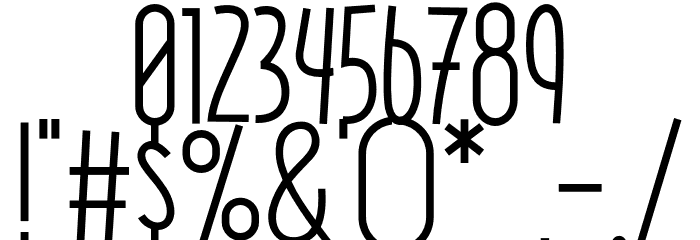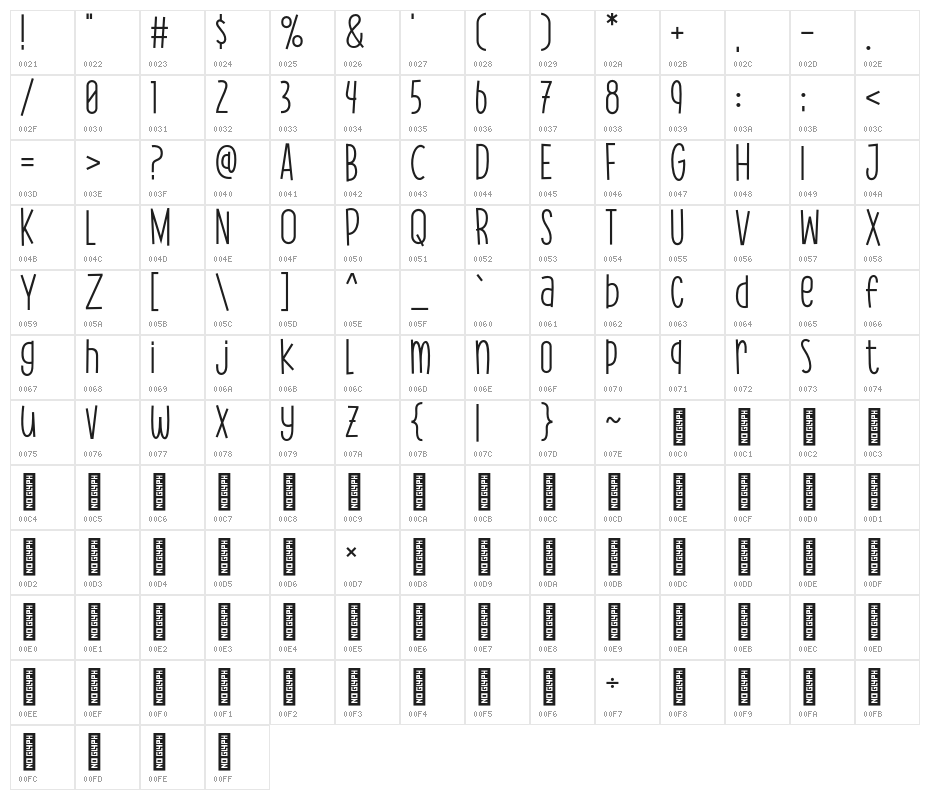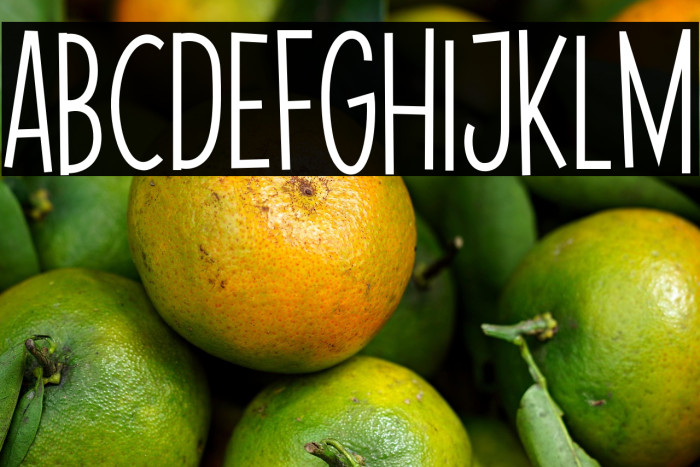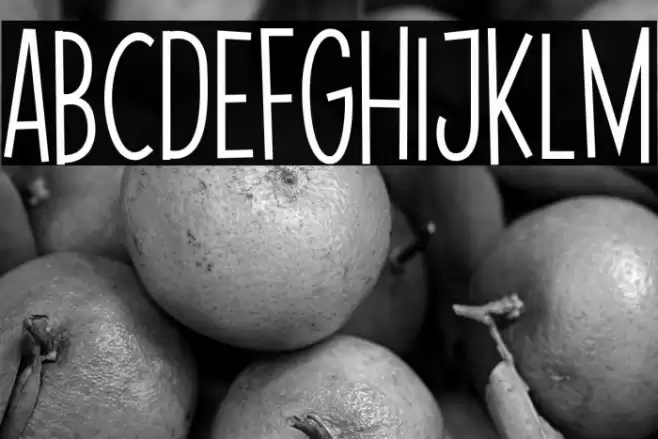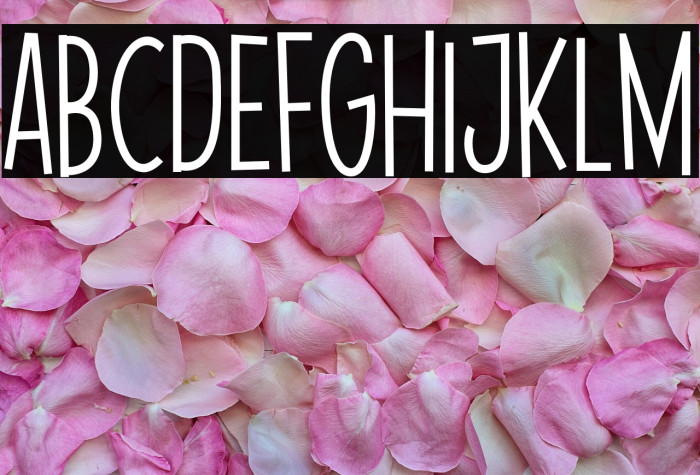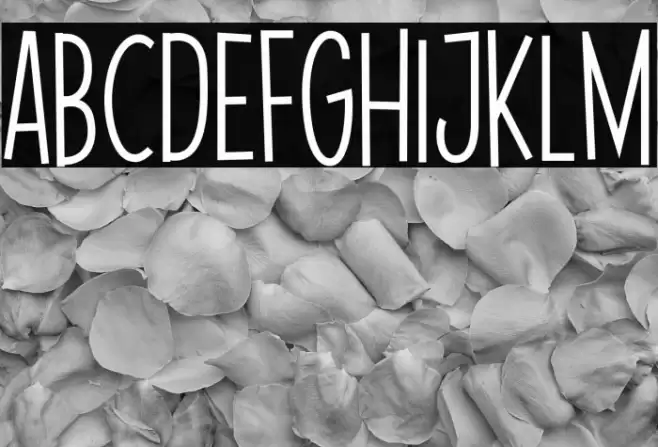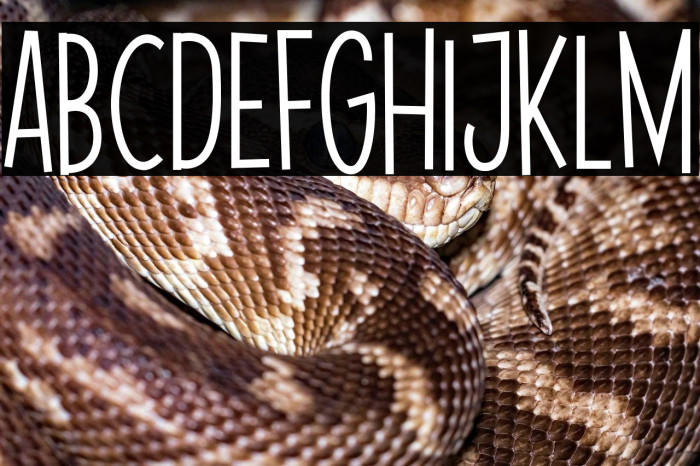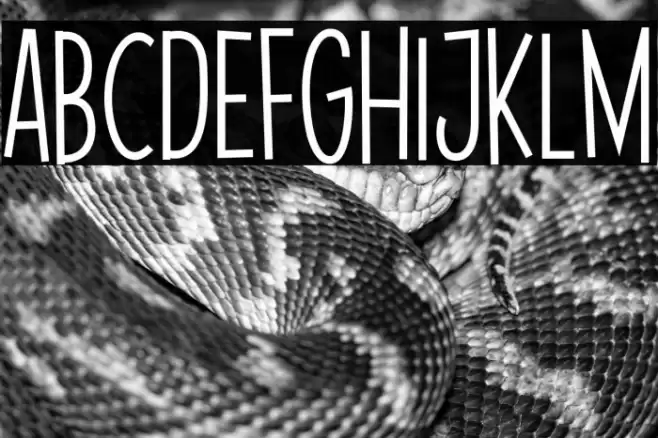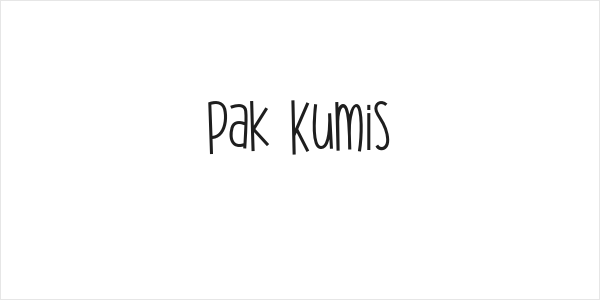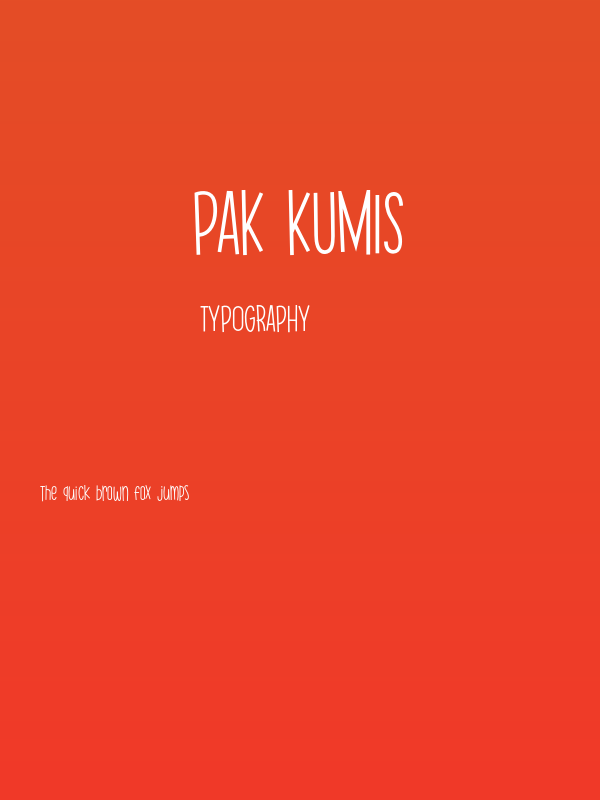
Pak Kumis Font
Pak Kumis Description
This font features a playful and elongated design, characterized by its tall, narrow letters with slightly rounded edges. The uppercase and lowercase letters maintain a consistent height, creating a uniform appearance. The numerals and special characters follow the same elongated style, ensuring cohesion across all elements. The font's unique structure gives it a whimsical and modern feel, making it stand out in various design contexts. Its clean lines and distinctive form make it suitable for creative projects that require a touch of personality.
| Proposed Projects | Ideal for children's books, playful branding, posters, and creative invitations. |